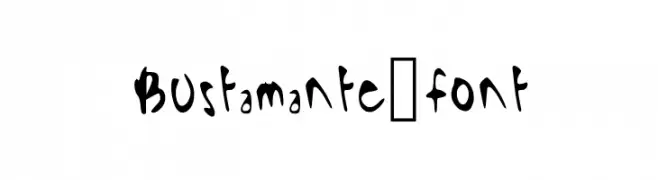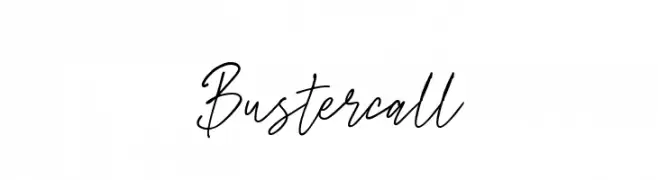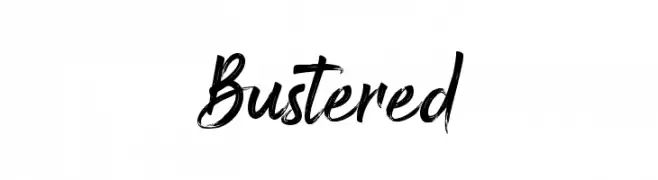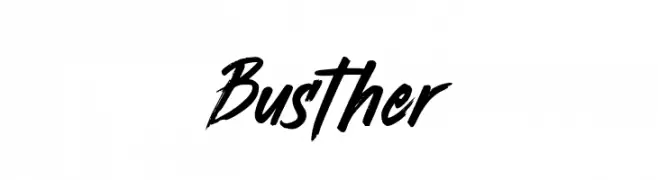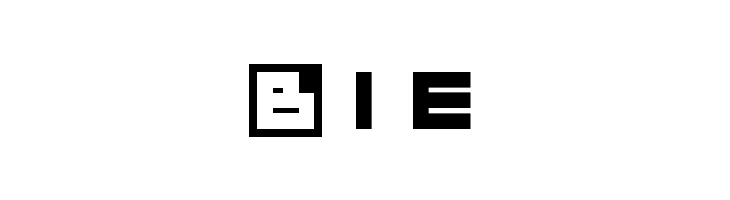
A dynamic and fluid script font with a handwritten style.
A chaotic, ink-splattered font with irregular, jagged characters.
A bold, handwritten font with a playful and dynamic style.
A bold, playful handwritten font with rounded strokes and a casual style.
A cursive, handwritten-style font with smooth, flowing strokes.
A modern, elegant script font with a fluid, handwritten style.
A bold, high-contrast brush script font with an energetic and dynamic style.
A bold, brush-style script font with dynamic and expressive strokes.
A bold, geometric font with square, blocky characters.